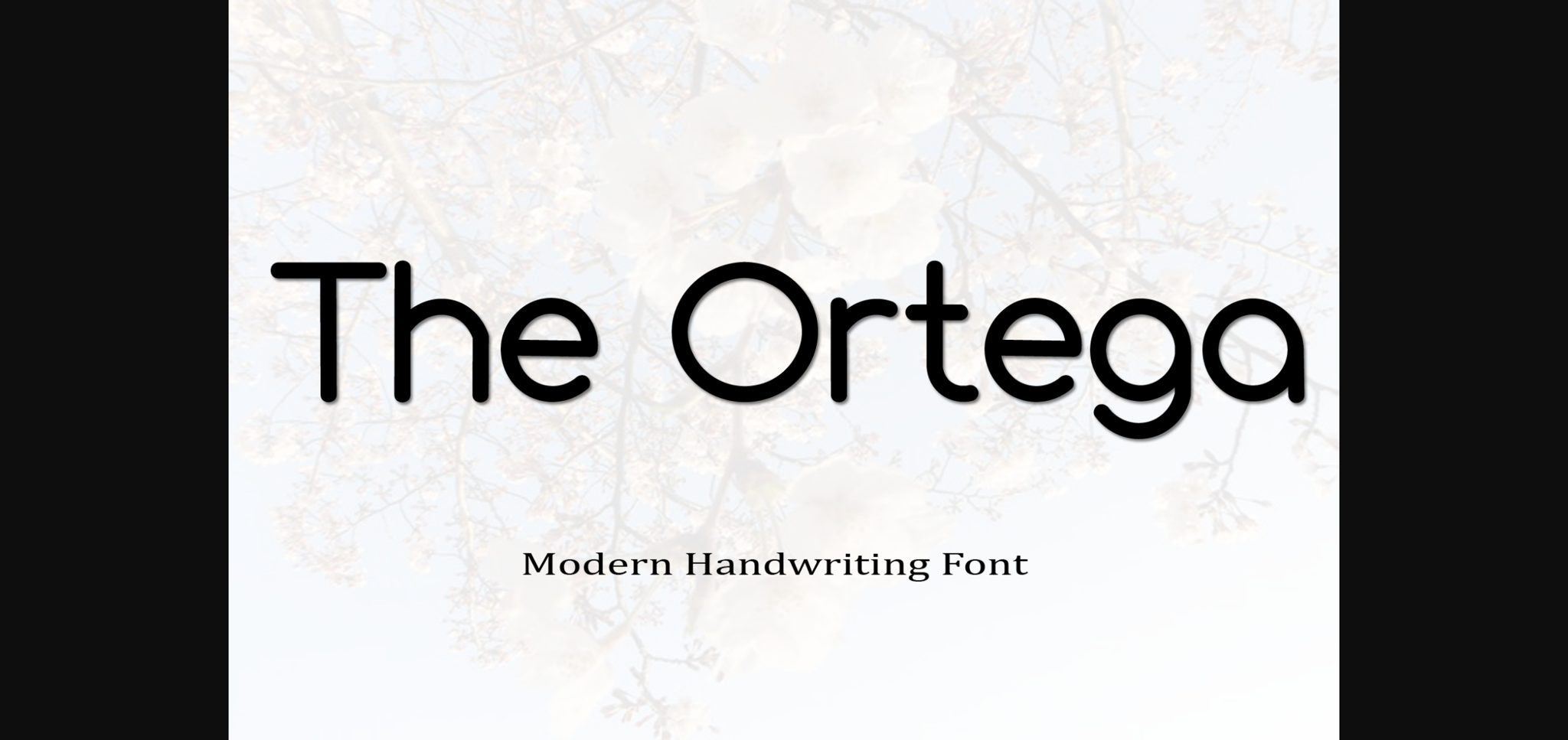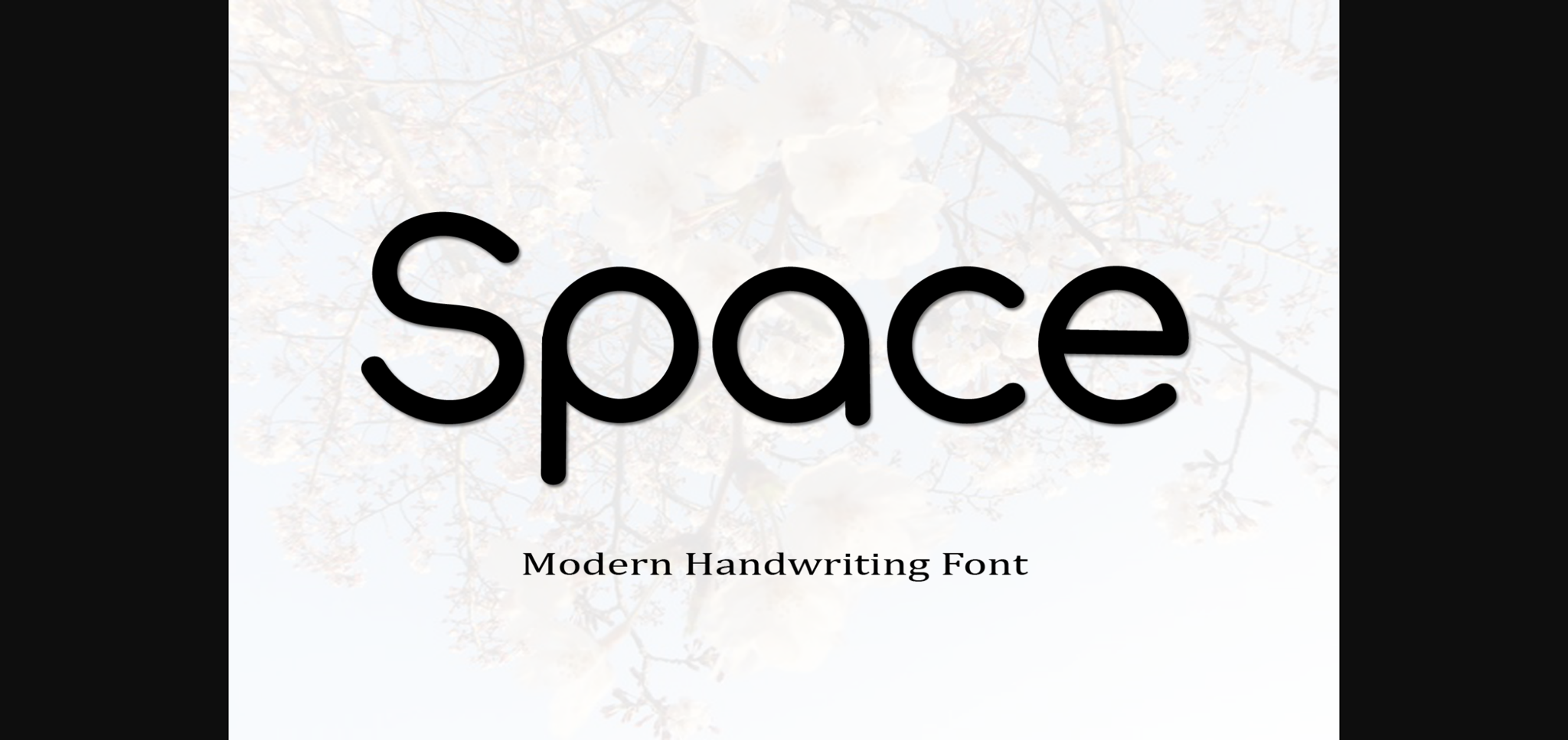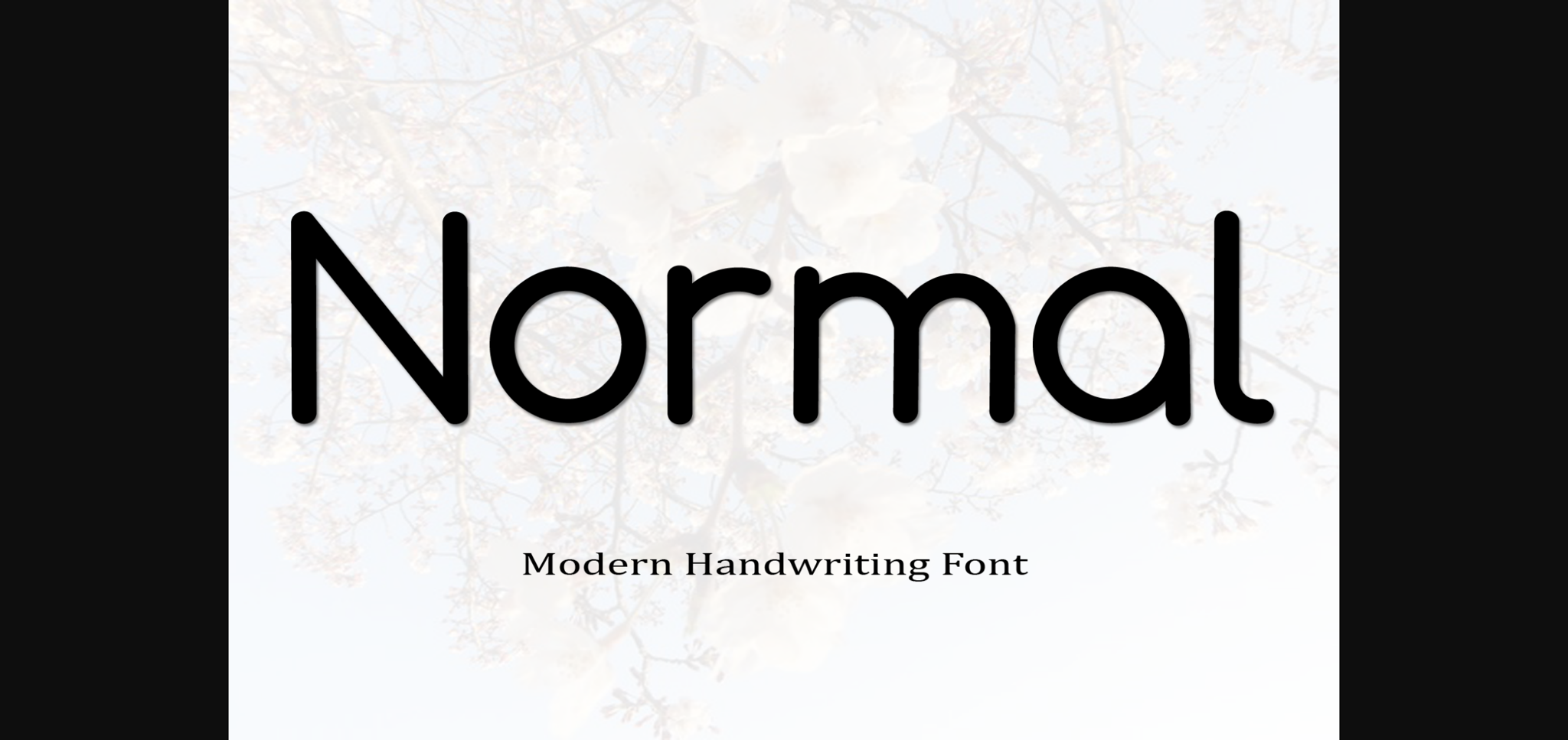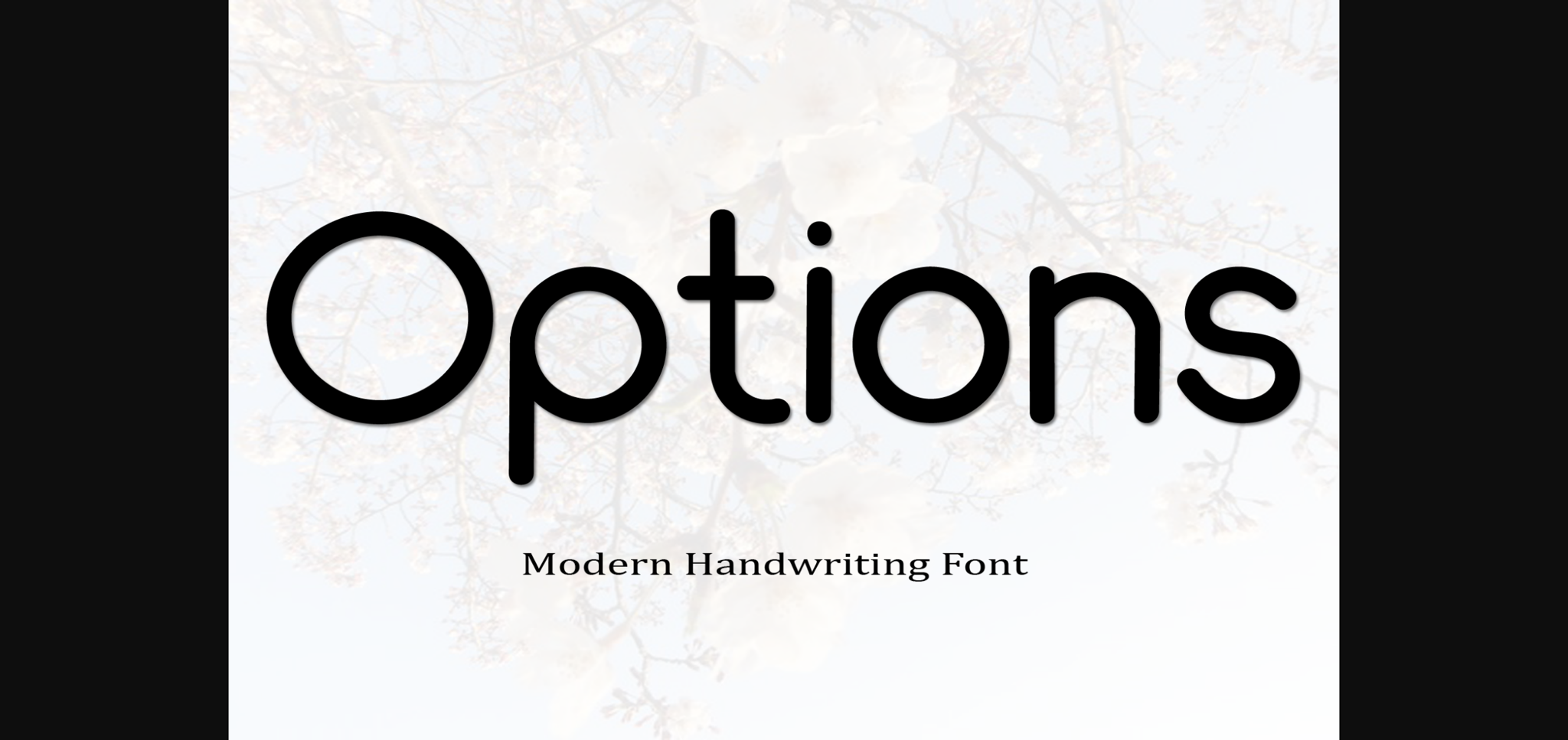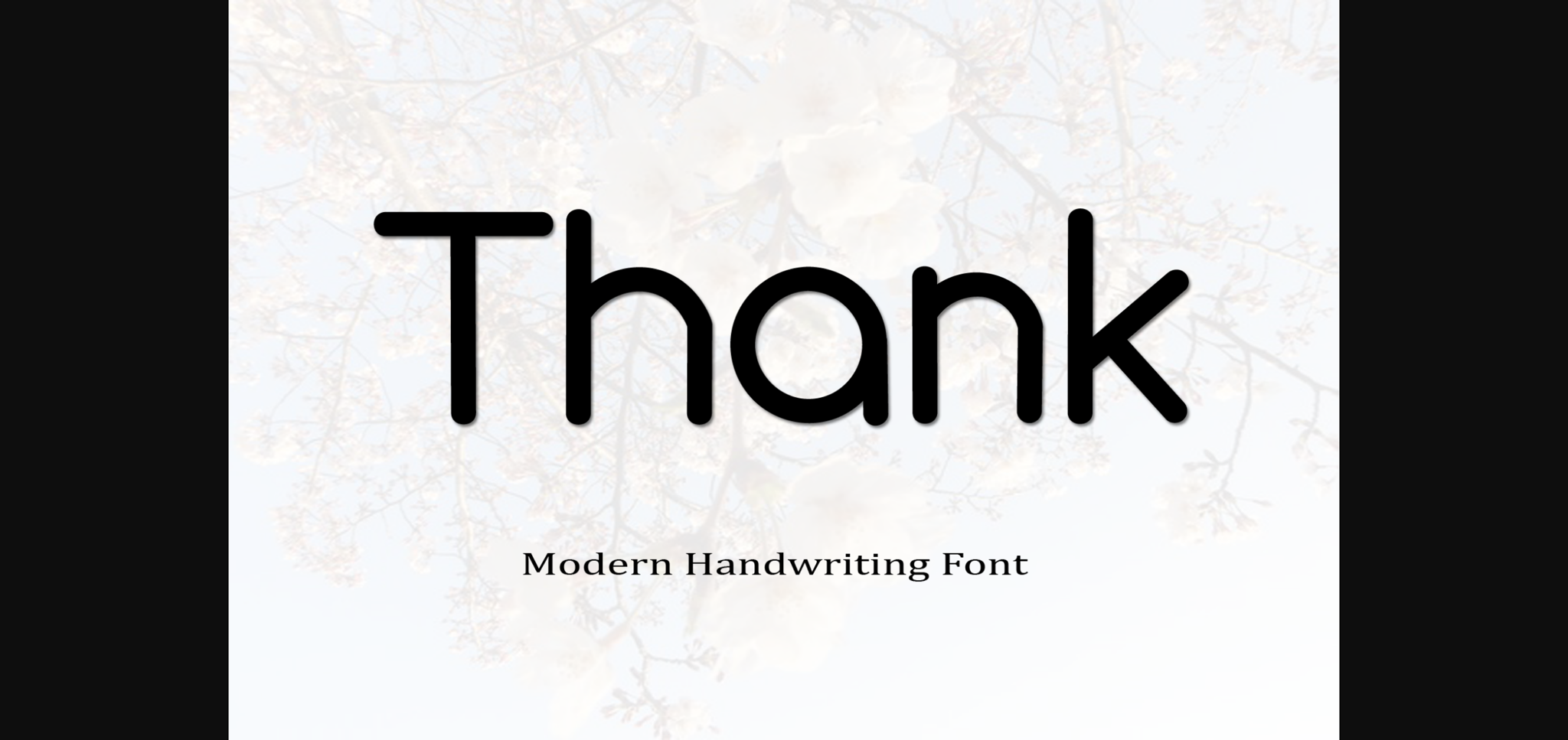
The Ortega Font
About The Ortega Font
The Ortega is a delicate and elegant sans serif font. Its distinct and well-balanced letters make this font a masterpiece. Fall in love with its incredibly versatile style and use it to create spectacular designs!